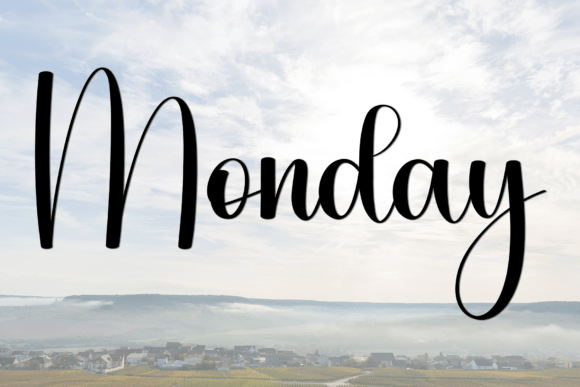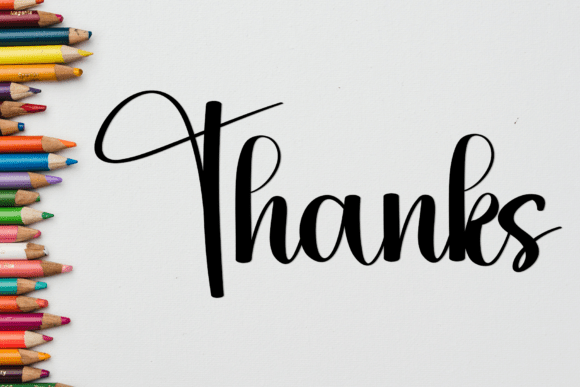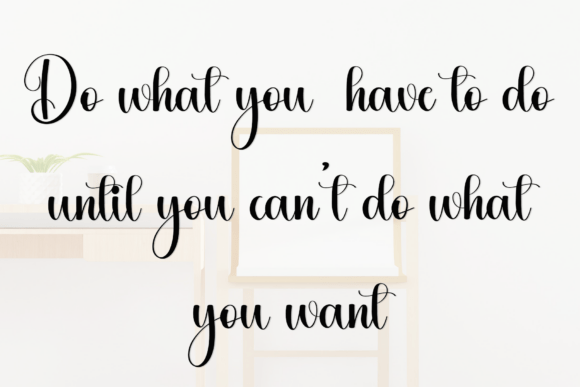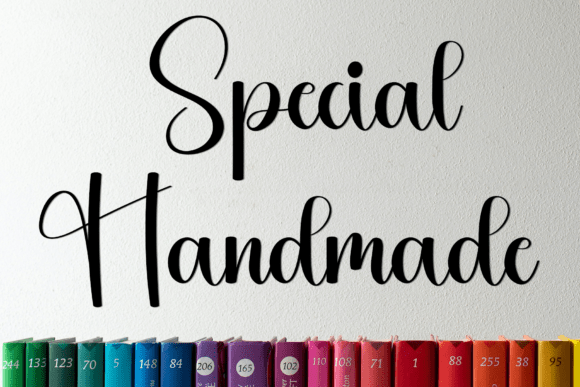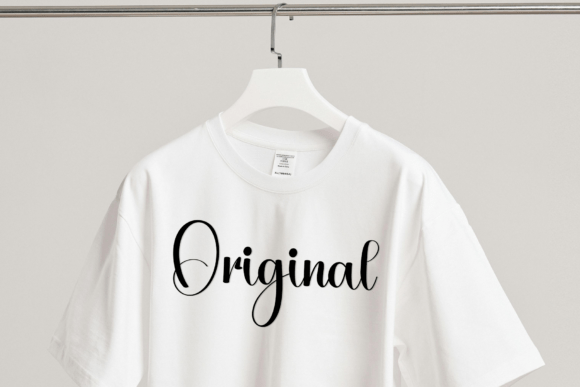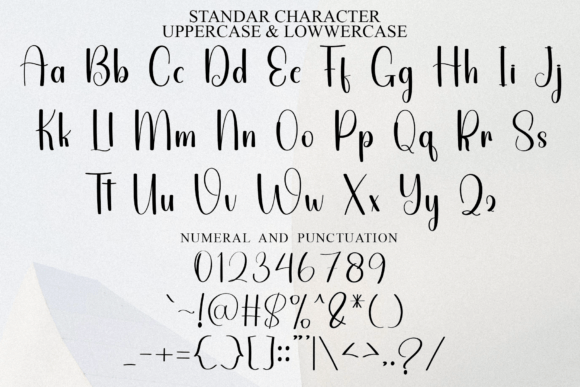
Introducing Handwork Font: The Ultimate Holiday Typeface
The holiday season is upon us, and with it comes the need for festive and merry designs that capture the spirit of the season. As a designer or crafter, you’re likely on the lookout for a typeface that can add a touch of enchantment to your creations. Look no further than Handwork Font, a decorative and whimsical font that’s perfect for greeting cards, gift tags, and holiday-themed projects.
The Magic of Handwork Font
Handwork Font is a carefully crafted typeface that’s designed to bring a cheerful and nostalgic ambiance to your words. Its decorative elements and whimsical flair make it the perfect choice for adding a touch of holiday magic to your designs. Whether you’re creating greeting cards, gift tags, or holiday-themed projects, Handwork Font is sure to make your typography shine.
Key Features of Handwork Font
- Festive and Merry: Handwork Font is designed to capture the spirit of the holiday season, with a festive and merry vibe that’s sure to delight.
- Decorative Elements: The font features decorative elements that add a touch of enchantment to your designs.
- Whimsical Flair: Handwork Font has a whimsical flair that’s perfect for creating holiday-themed projects that are both fun and festive.
Handwork Font is perfect for designers and crafters who want to add a touch of holiday magic to their creations. Whether you’re creating digital or physical products, this font is sure to make your typography shine. Here are just a few ways you can use Handwork Font:
- Greeting Cards: Create festive and merry greeting cards that are sure to delight your friends and family.
- Gift Tags: Add a touch of enchantment to your gift tags with Handwork Font.
- Holiday-Themed Projects: Use Handwork Font to create holiday-themed projects, such as party invitations, decorations, and more.
Why Choose Handwork Font?
There are many fonts to choose from, but Handwork Font stands out from the rest. Here are just a few reasons why:
- Unique and Eye-Catching: Handwork Font is a unique and eye-catching typeface that’s sure to make your designs stand out.
- High-Quality: Handwork Font is a high-quality typeface that’s designed to deliver exceptional results.